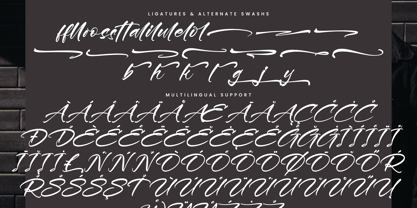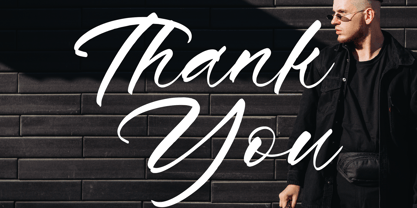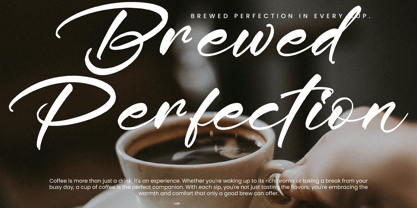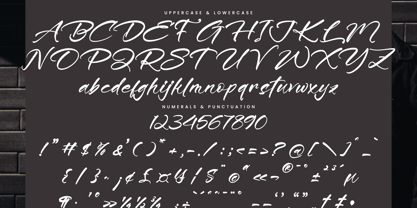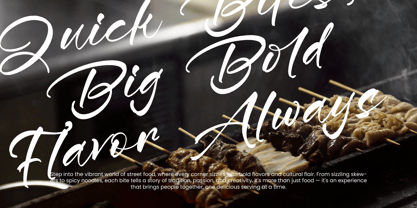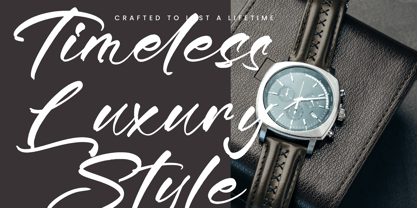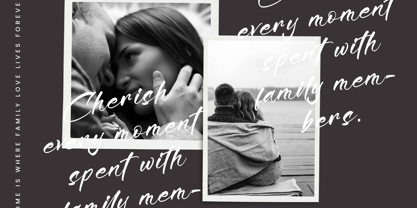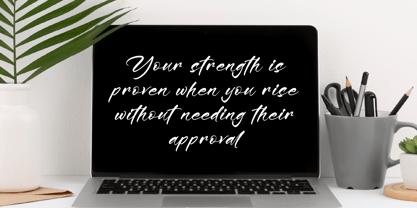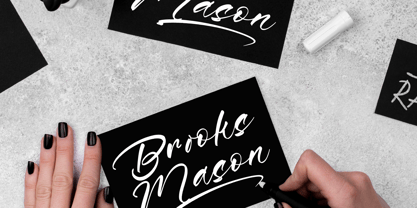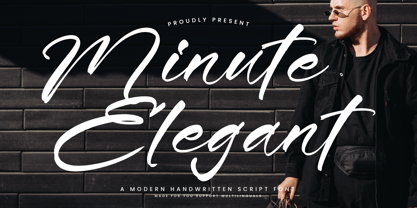
Minute Elegant
by Integritype
The Minute Elegant Font Family was designed by Ranndy Rizky Febrian and published by Integritype. Minute Elegant contains 2 styles and family package options.
Minute Elegant - Modern Handwritten Script Font, from Integritype Studio, perfect for any project like: logos, branding projects, homewares designs, product packaging, mugs, quotes, posters, shopping bags, t-shirts, covers books, business cards, invitation cards, greeting cards, labels, photography, watermarks, special events and all your other luxury projects that require a premium taste.